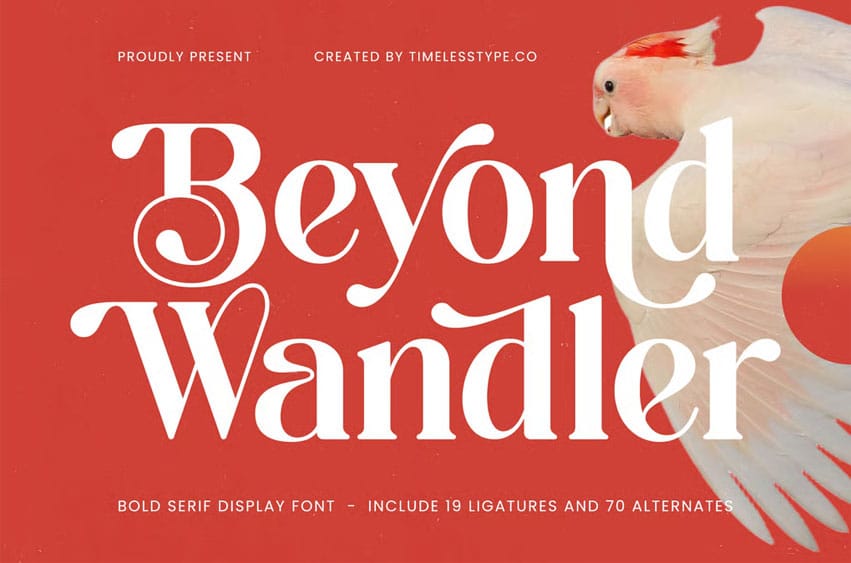
Beyond Wandler Font is a Bold Serif Display Font crafted with elegant curves, high contrast strokes, and a refined modern–classic aesthetic. Its stylish terminals and expressive ligatures create a luxurious typographic presence perfect for branding, editorial design, packaging, fashion projects, posters, logo identities, and premium visual storytelling.
Equipped with 19 ligatures and 70 alternates, Beyond Wandler gives you full creative freedom to design stunning headlines with dramatic flair and timeless sophistication. The font supports multilingual characters and includes smooth OpenType features for effortless customization.